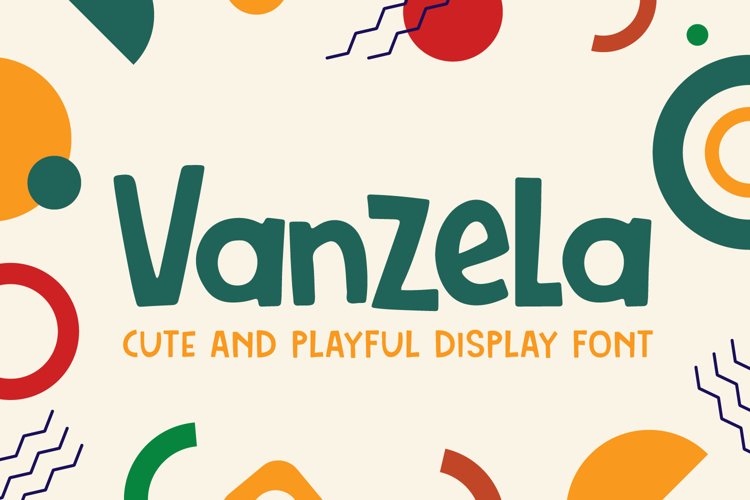
Vanzela - Display Font that fits perfectly into anything. Its casual charm makes it look very down to earth, easy to read and, in the end, very versatile. Pricilial will look amazing in any context, whether used in a busy background or as a standalone headline!